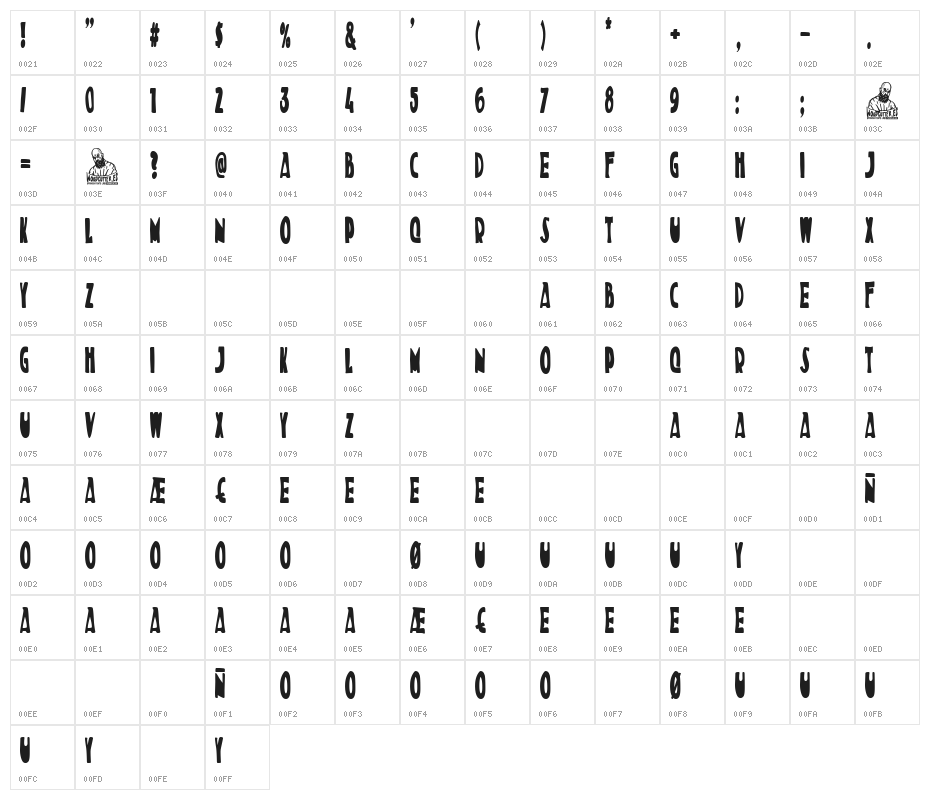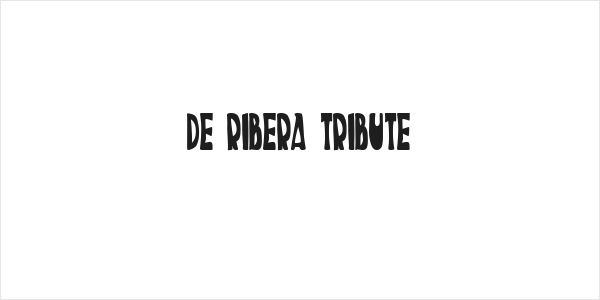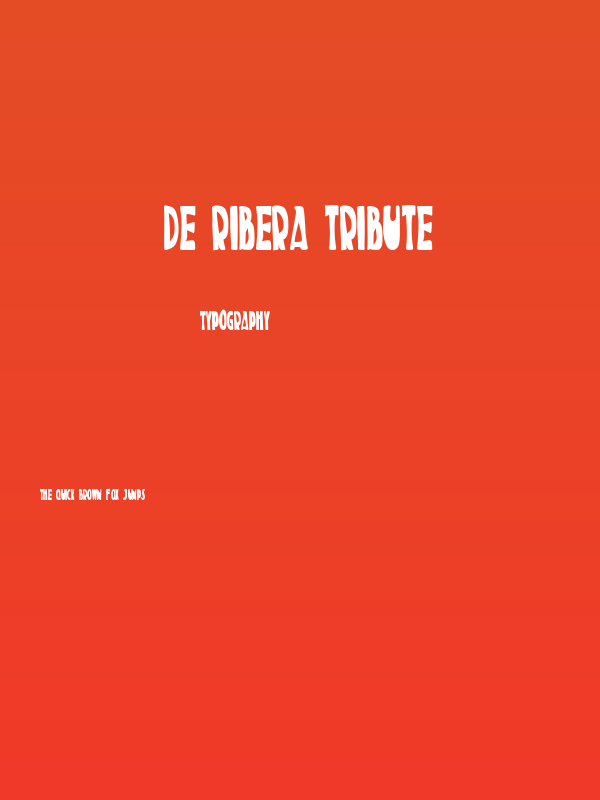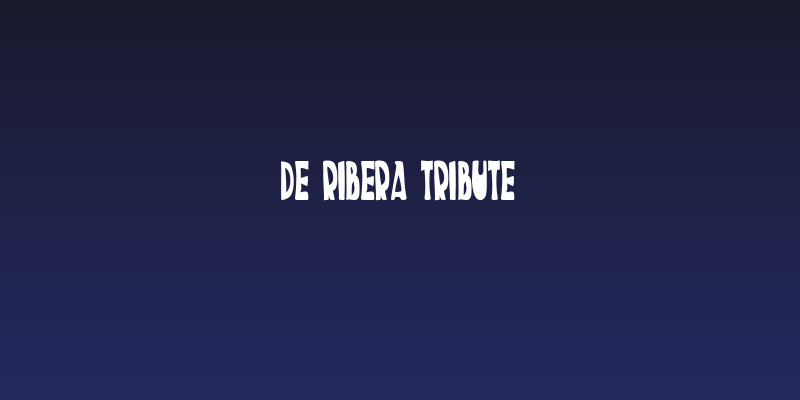
De Ribera Tribute Font
De Ribera Tribute Description
| Overall Style | Decorative, Playful, Hand-drawn |
| Use Case | Headlines, Posters, Logos, Short phrases |
| Proposed Projects | Posters, childrenΓ’β¬β’s books, event flyers, branding for creative businesses, packaging, and artistic projects. |